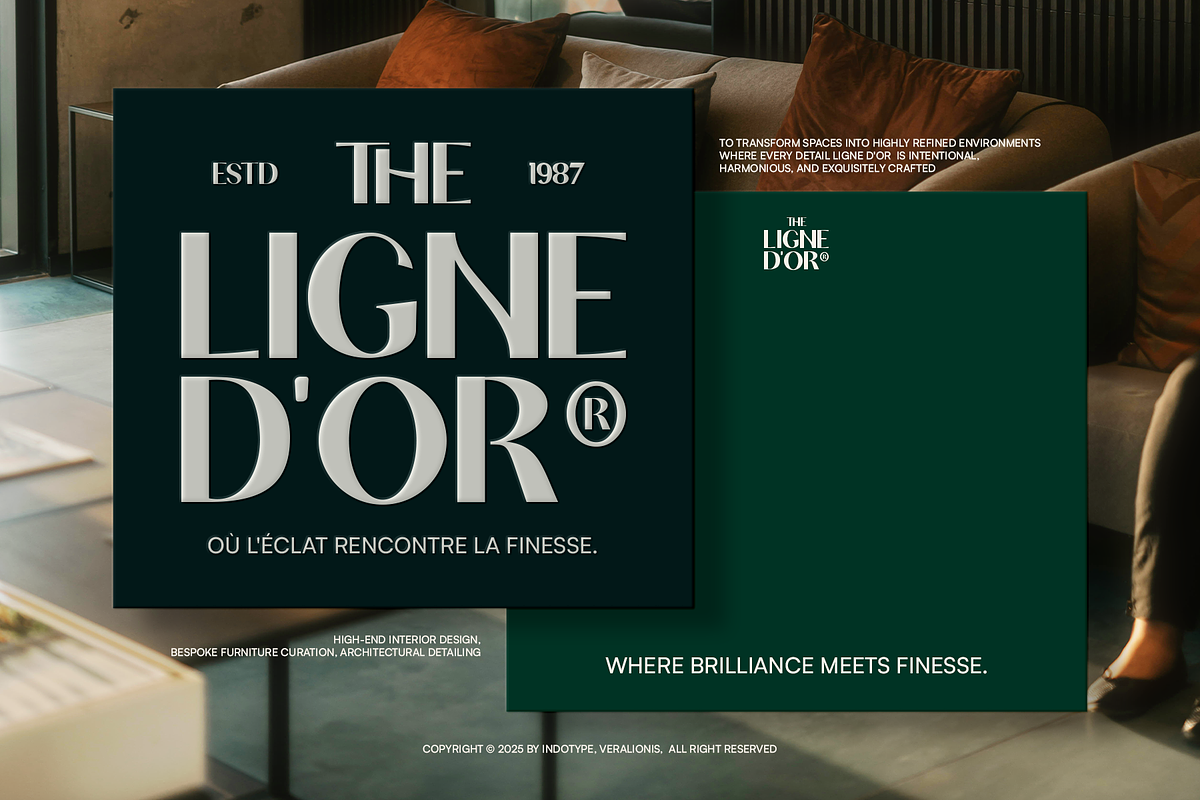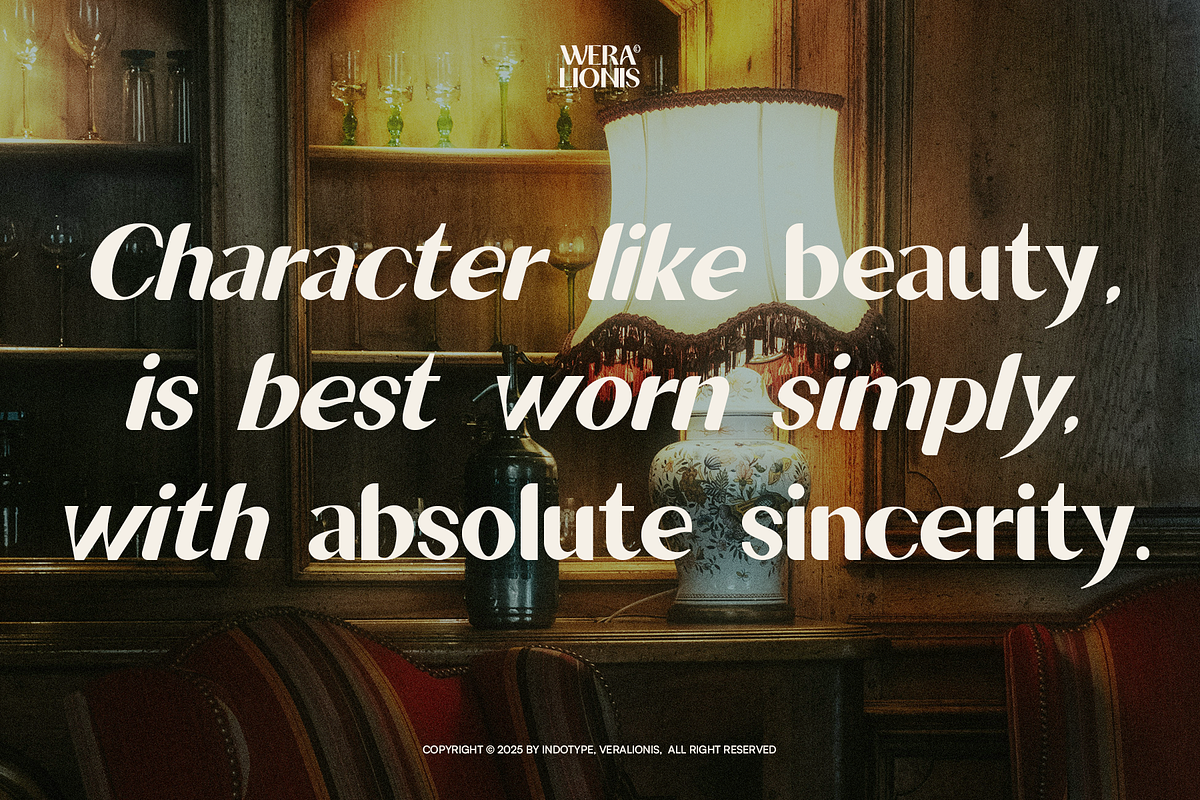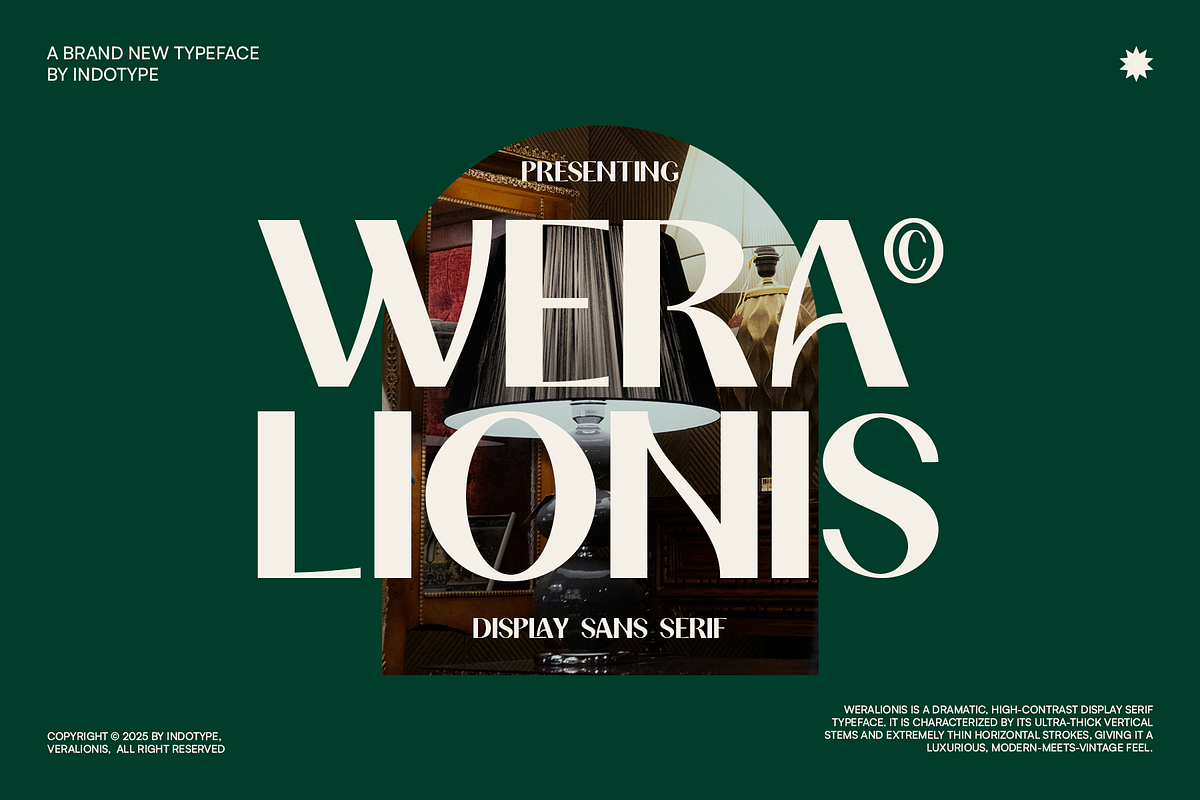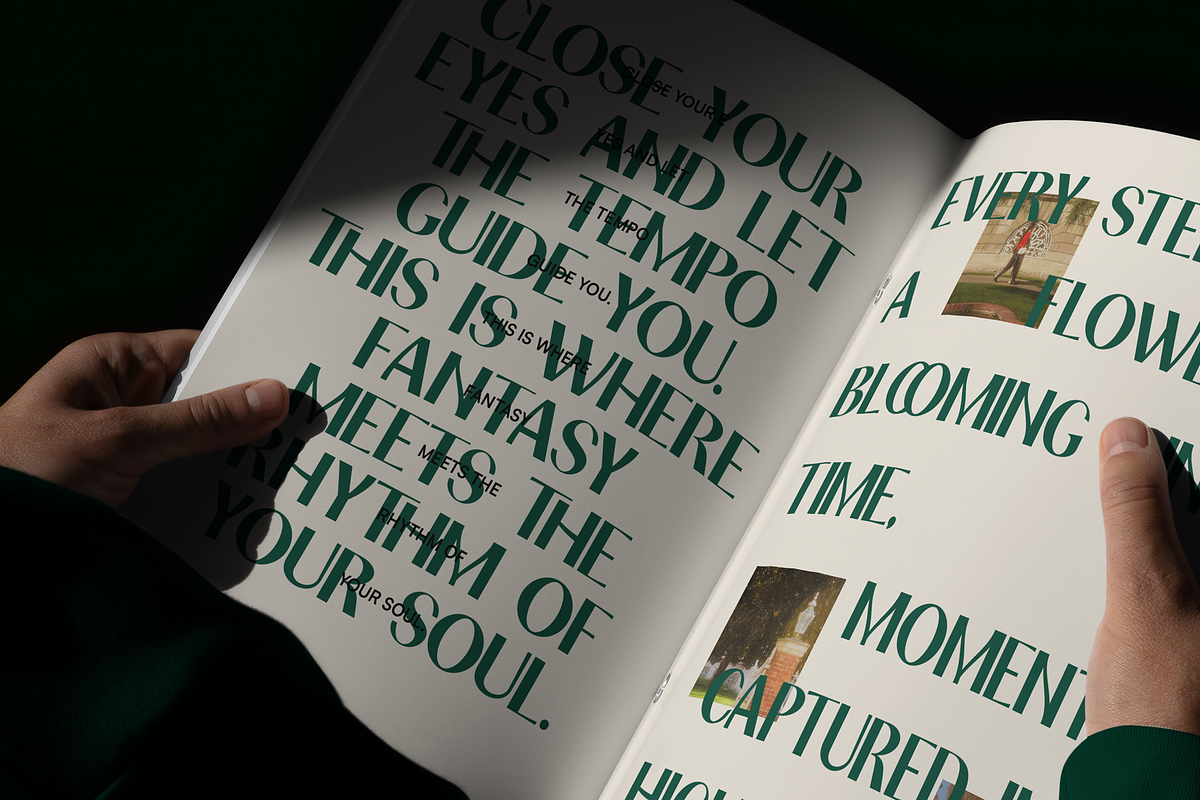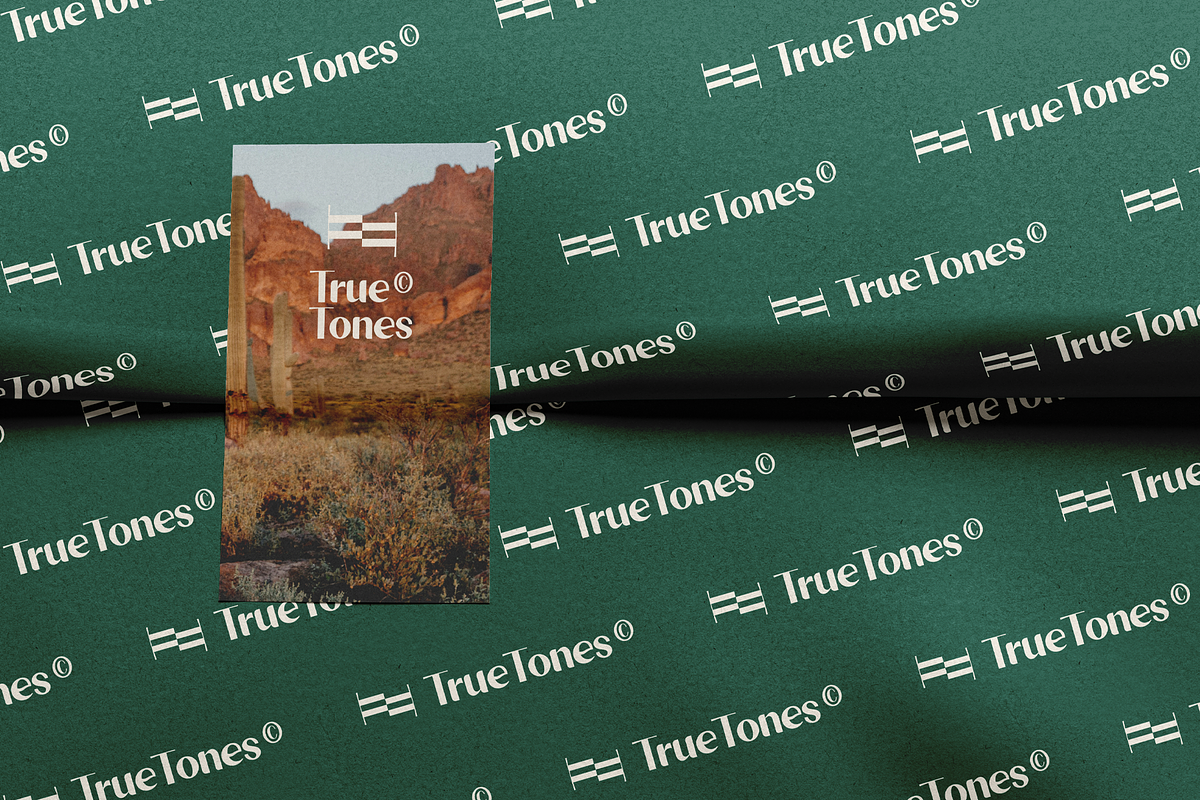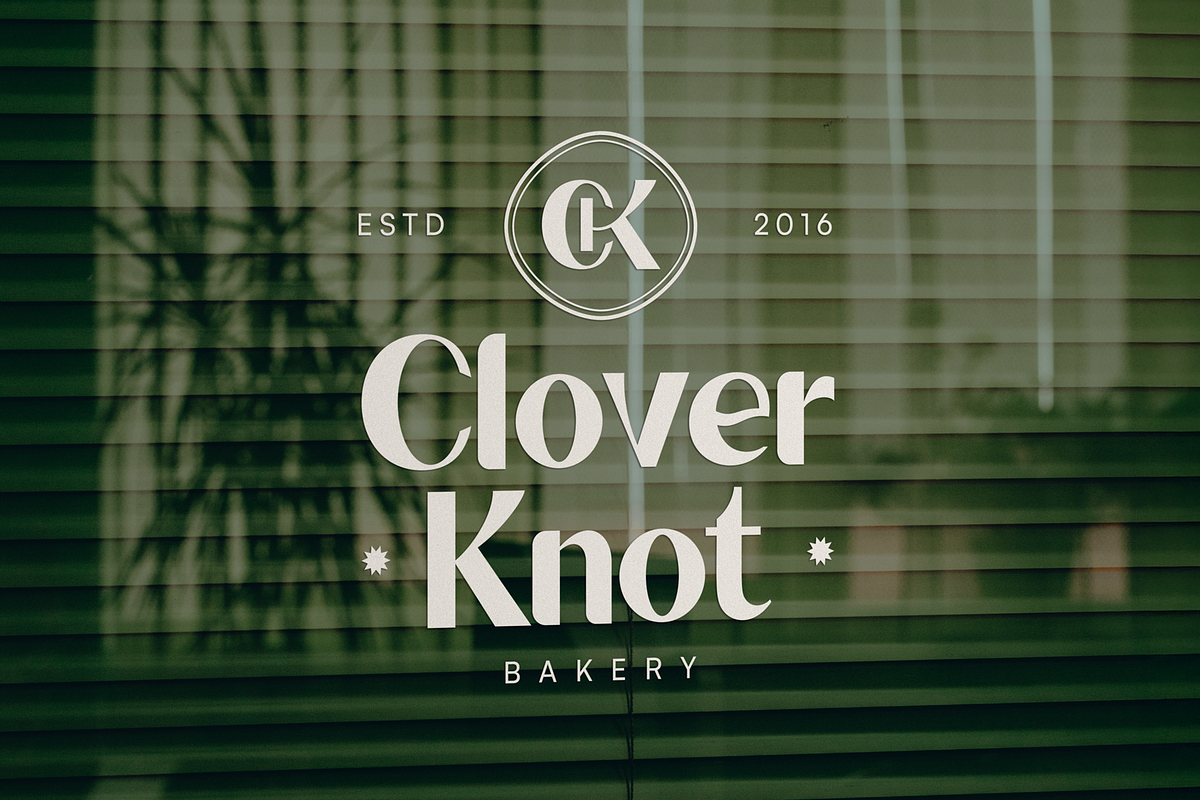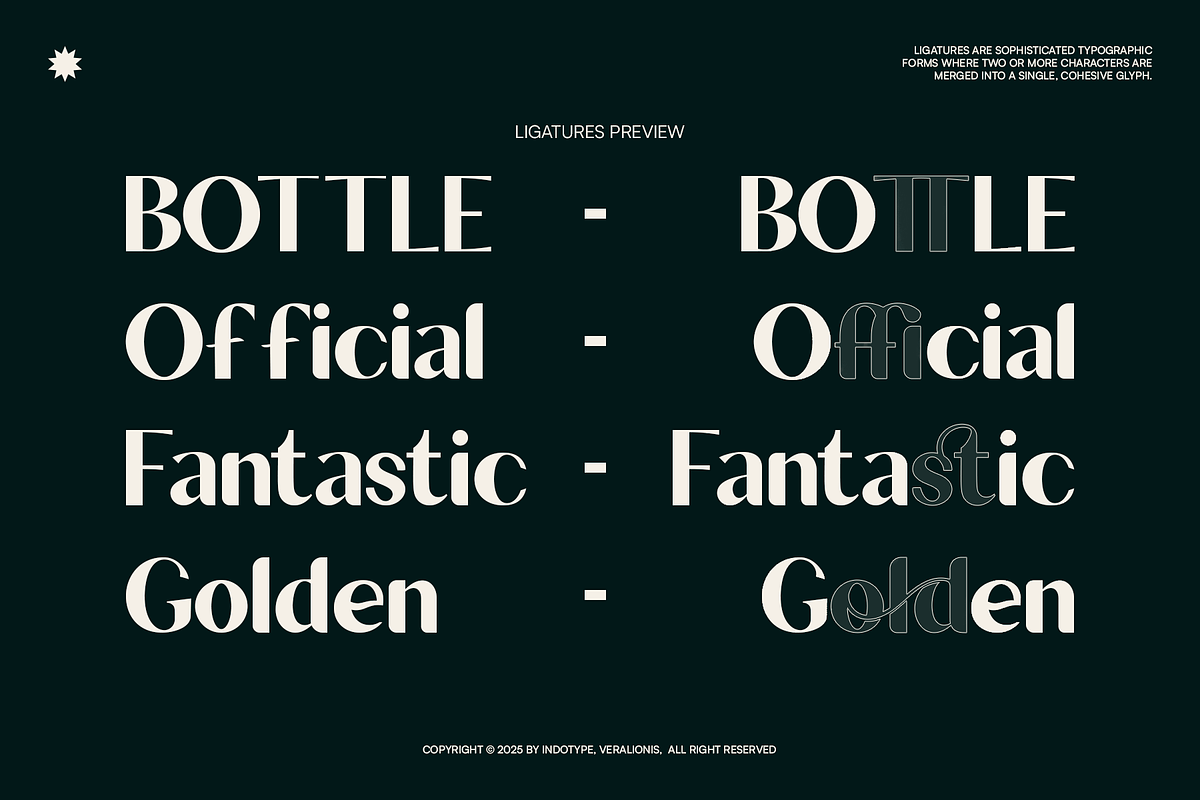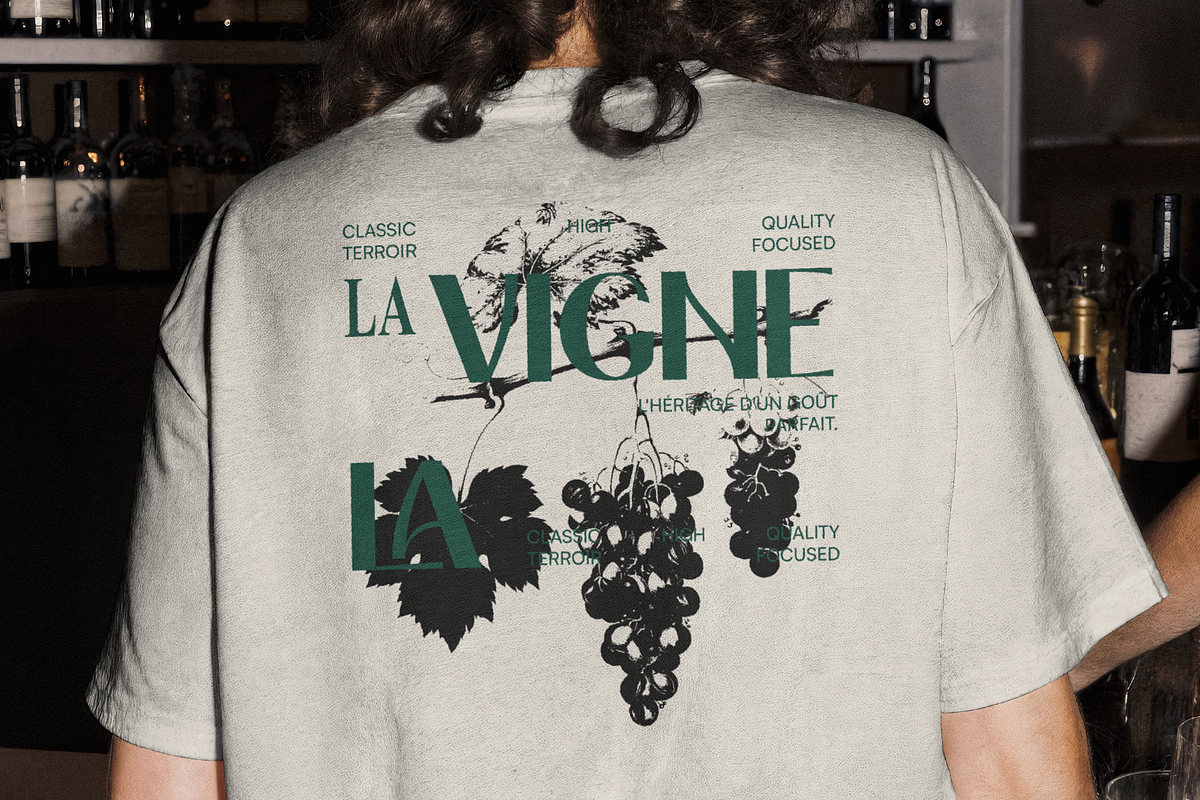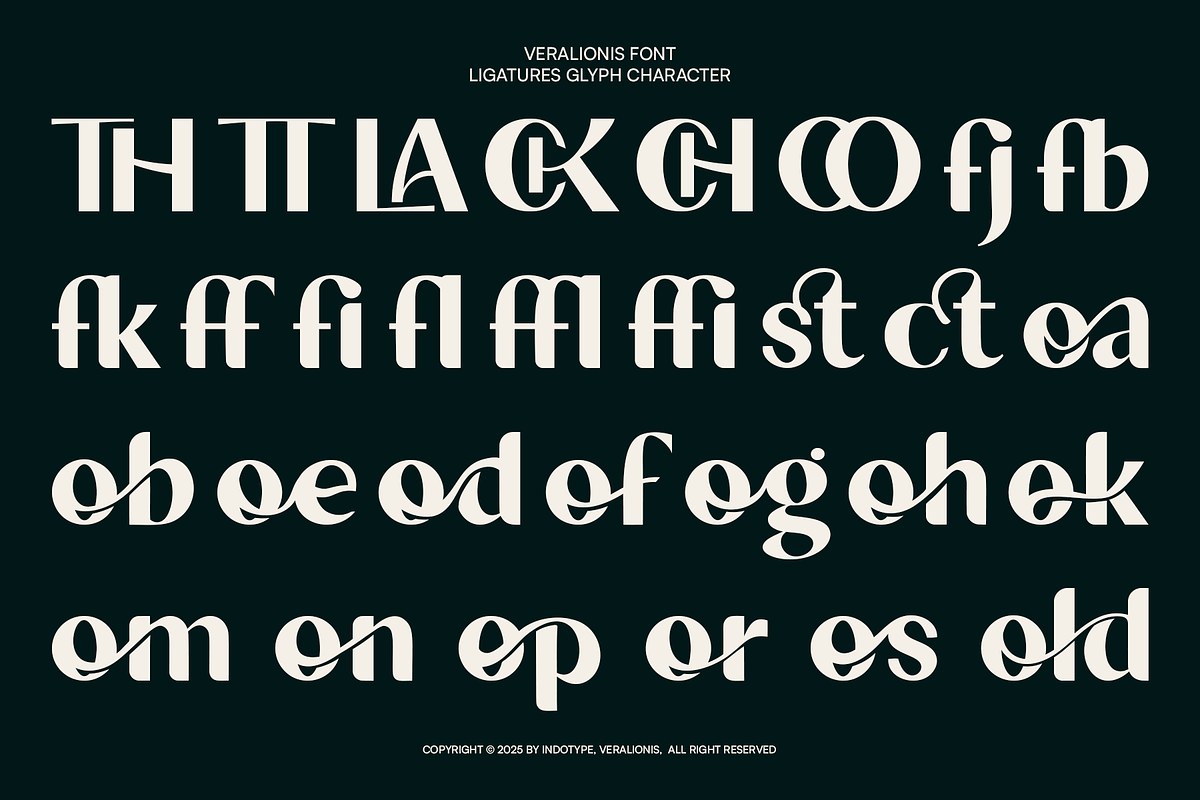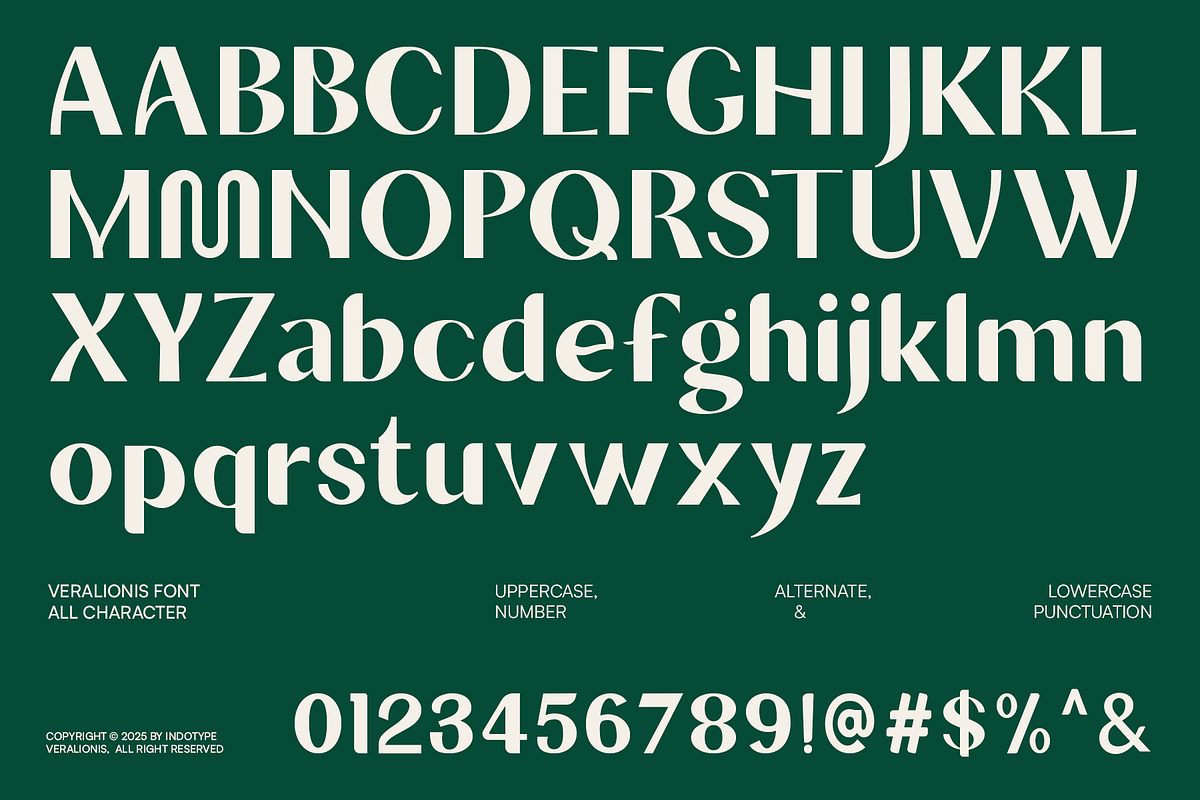
Weralionis - High Contrast Sans
Weralionis is a breathtaking display serif that commands attention through extreme contrast and refined drama. Characterized by its voluptuous, thick vertical stems juxtaposed against razor-thin horizontal strokes, this typeface creates a rhythm of luxury and tension. It masterfully bridges the gap between vintage elegance and modern sophistication, evoking the grandeur of Didone typography with a contemporary, sharper edge. Designed for maximum visual impact, Weralionis is the epitome of high-end typography. It thrives in settings where luxury and style are paramount—think fashion magazine headlines, haute couture branding, elegant perfume packaging, and sophisticated editorial layouts. This is not a font for subtlety; it is a deliberate statement of opulence and design confidence.
- Ideal for: Fashion Editorials, Luxury Branding, Perfume & Cosmetic Packaging, Magazine Headlines, High-End Logotypes, Wedding Invitations.
- Classification: Serif, Display, High-Contrast, Didone, Modern.
- Attributes: Dramatic, Luxurious, Elegant, Bold, Refined, Sophisticated, Opulent.